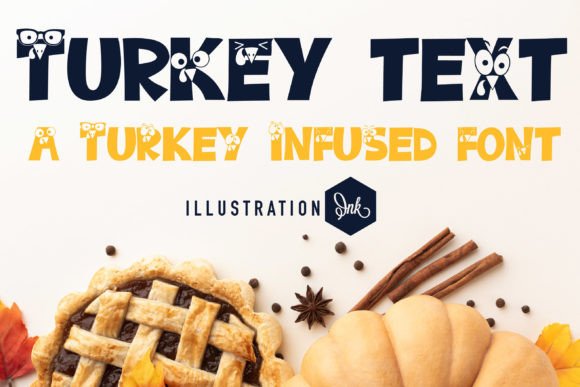
Welcome to the whimsical world of Turkey Text, the fun and quirky display font that will add a splash of autumn coziness to all your creative adventures. Crafted by the talented Illustration Ink, Turkey Text is not just a font; it's a delightful journey into the vibrant hues and heartwarming spirit of the Thanksgiving season.
Picture this: golden leaves twirling in the crisp autumn breeze, the aroma of freshly baked pies wafting through the air, and the joyous laughter of loved ones gathered around a festive table. Turkey Text captures the essence of these cherished moments, transforming your digital designs into captivating visual feasts.
With its playful turkey-infused characters, Turkey Text dances across the screen, bringing a smile to the faces of all who behold it. Its unique charm shines through in every letter, adding a touch of whimsy and personality to your projects. Whether you're creating Thanksgiving invitations, festive social media posts, or eye-catching website banners, Turkey Text is your perfect creative companion.
But that's not all! Turkey Text's versatility extends far beyond the Thanksgiving season. Its playful spirit and heartwarming aura make it an excellent choice for a wide range of projects, from cheerful birthday cards to whimsical posters and everything in between. Let Turkey Text be your font of choice whenever you want to infuse your designs with a sense of joy and lightheartedness.
To add to its charm, Turkey Text comes with a feathered version, a delicate variation that adds an extra layer of texture and visual interest to your designs. This feathered companion perfectly complements the original Turkey Text, allowing you to mix and match, creating captivating compositions that are sure to leave a lasting impression.